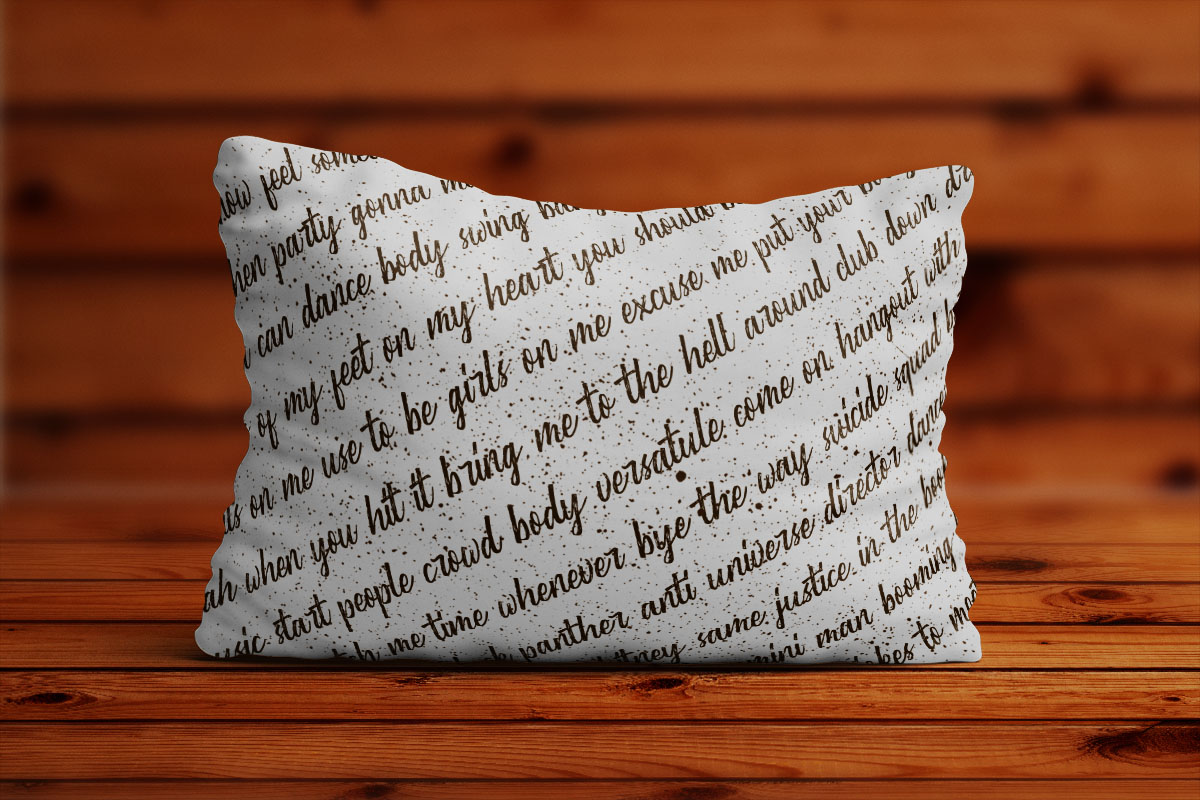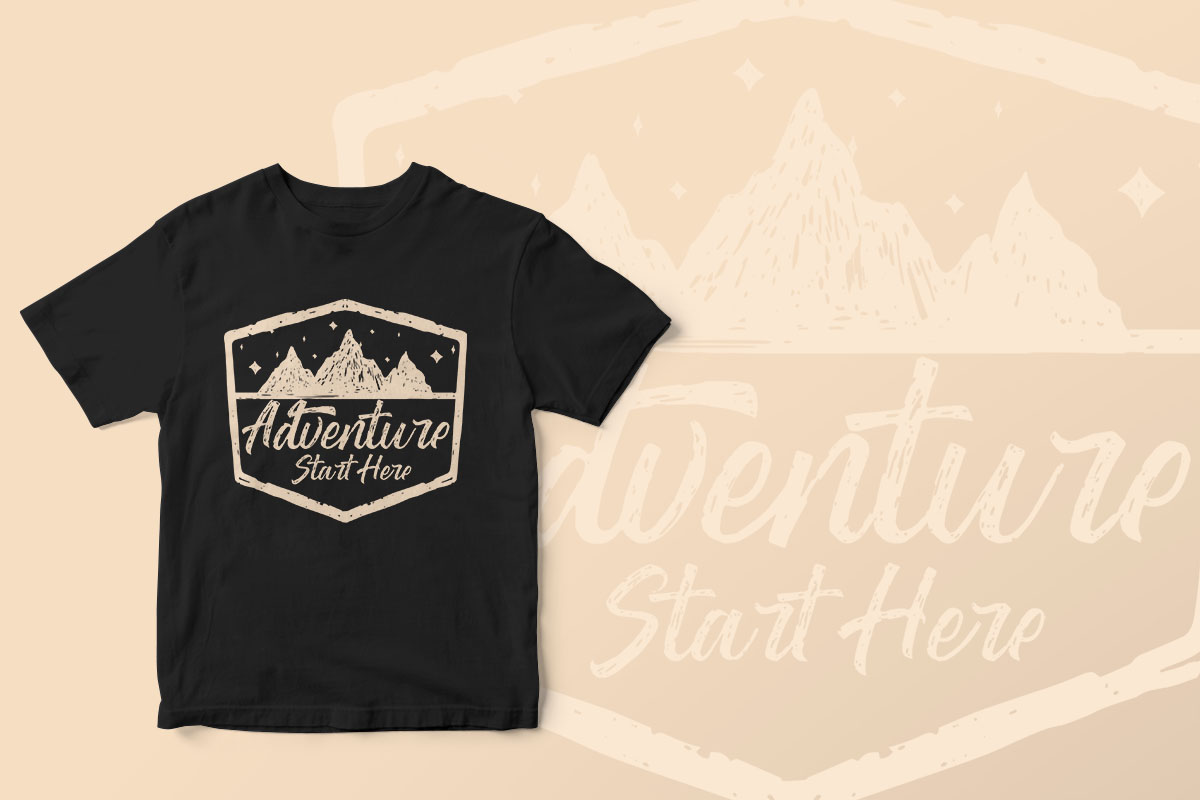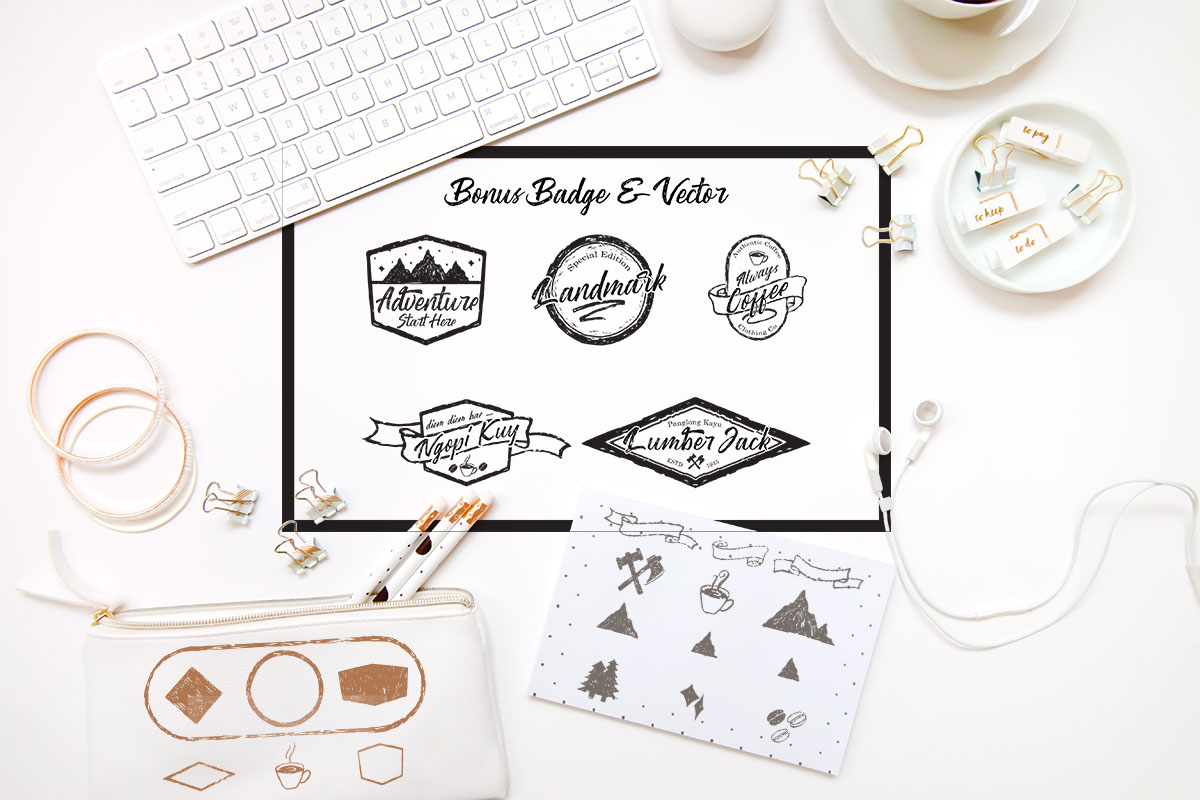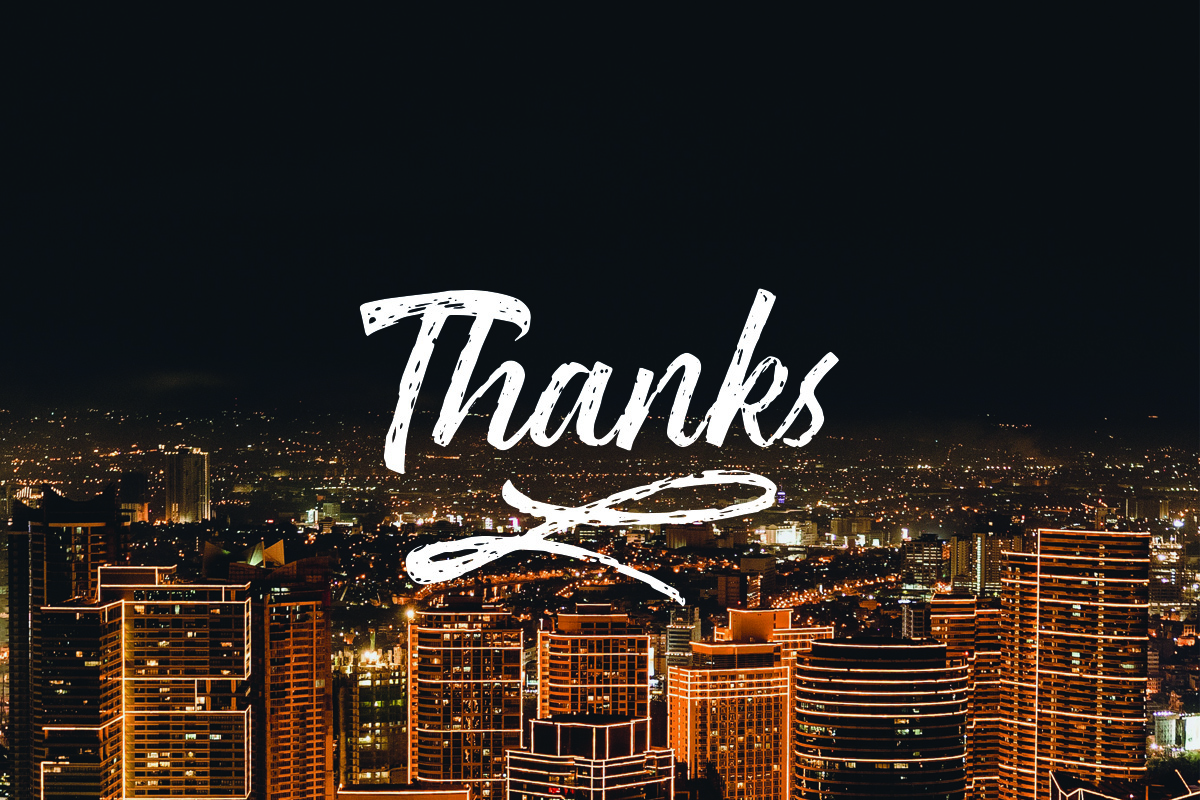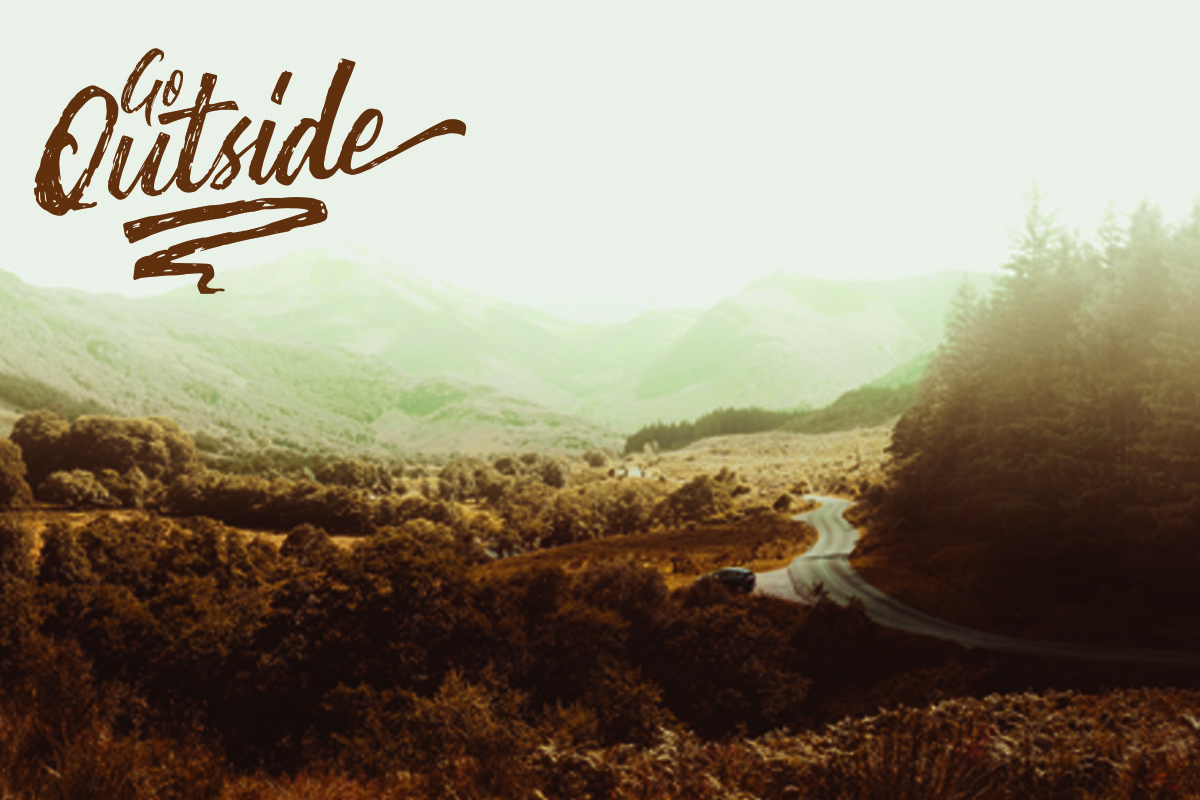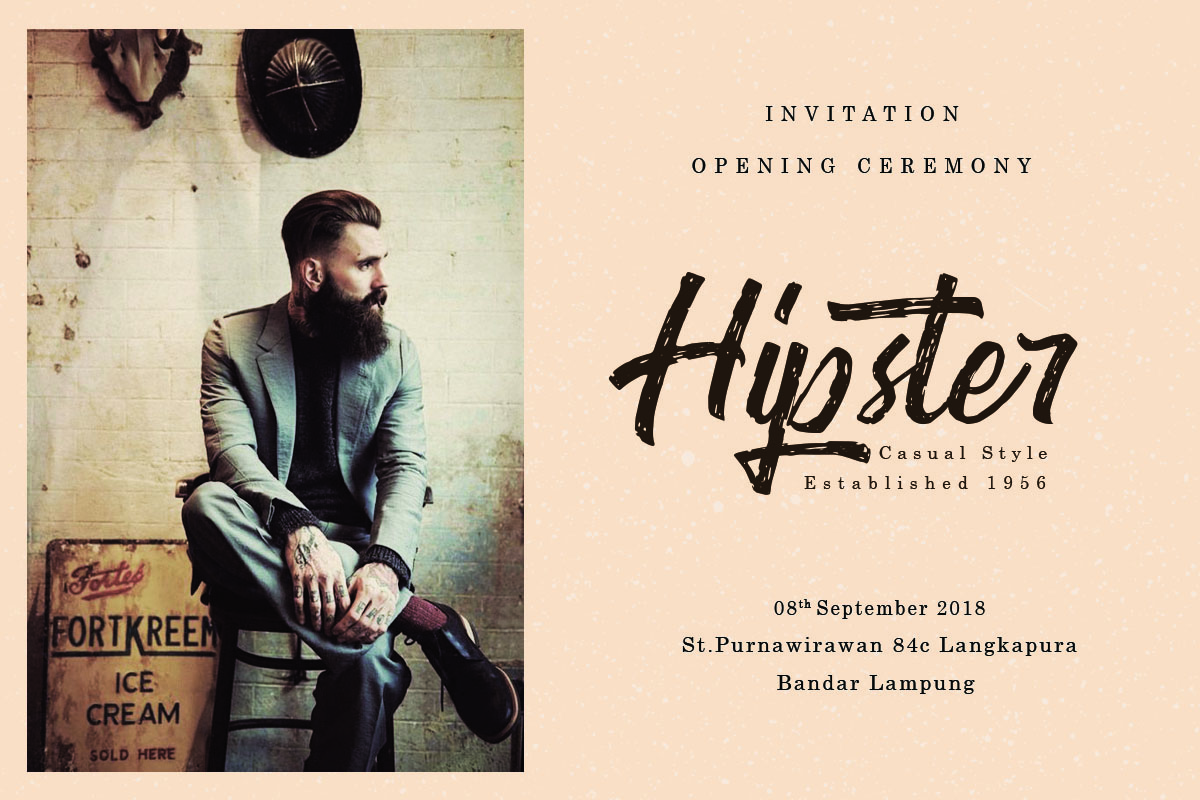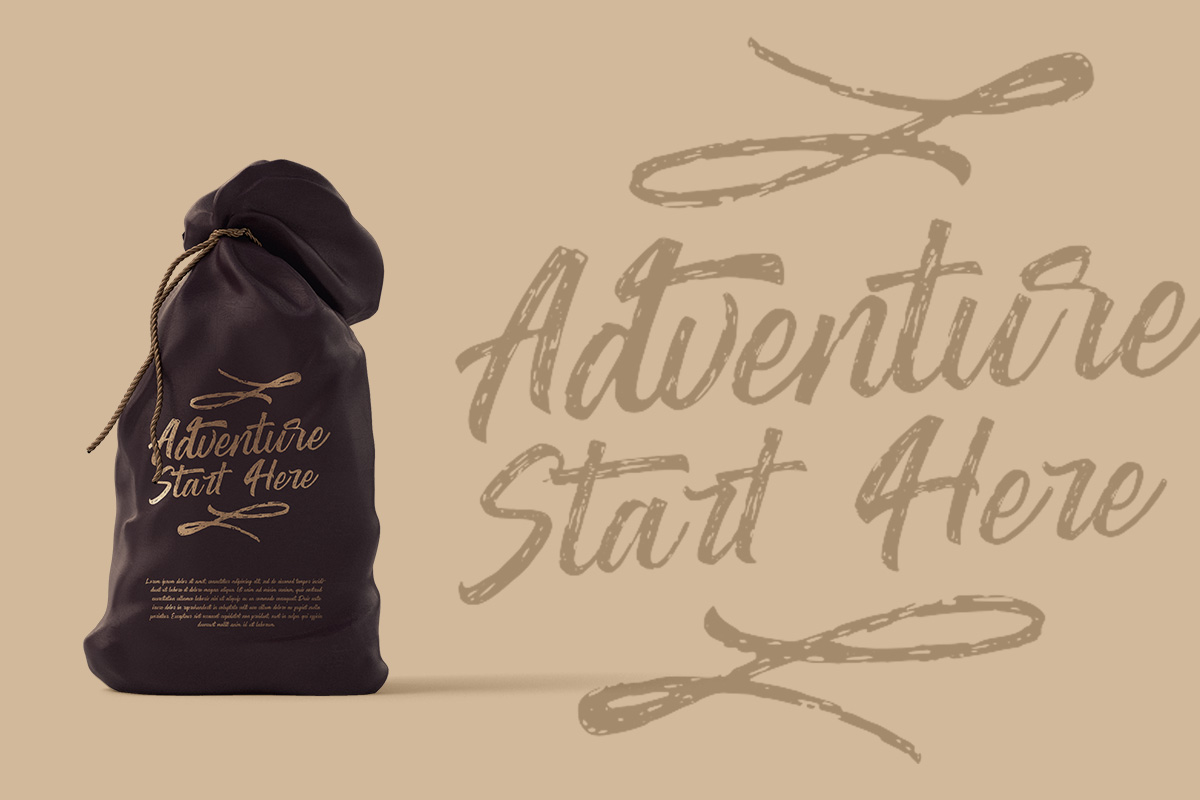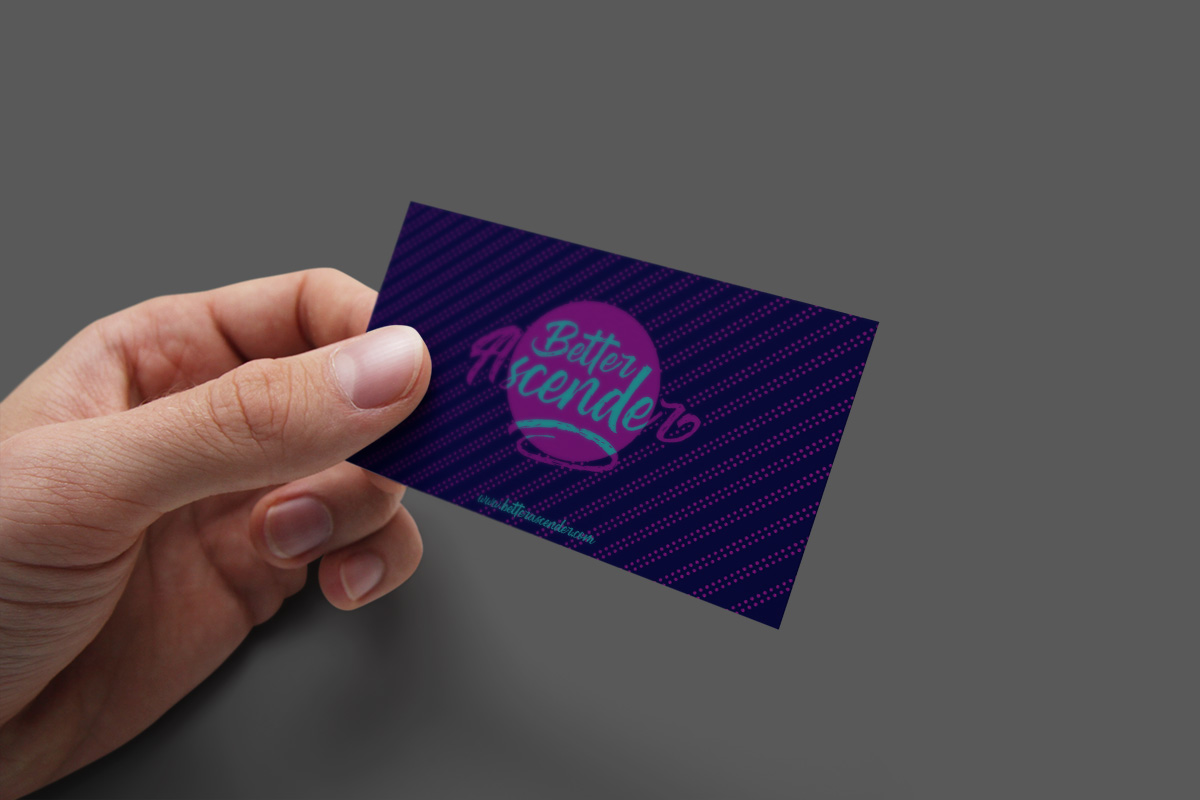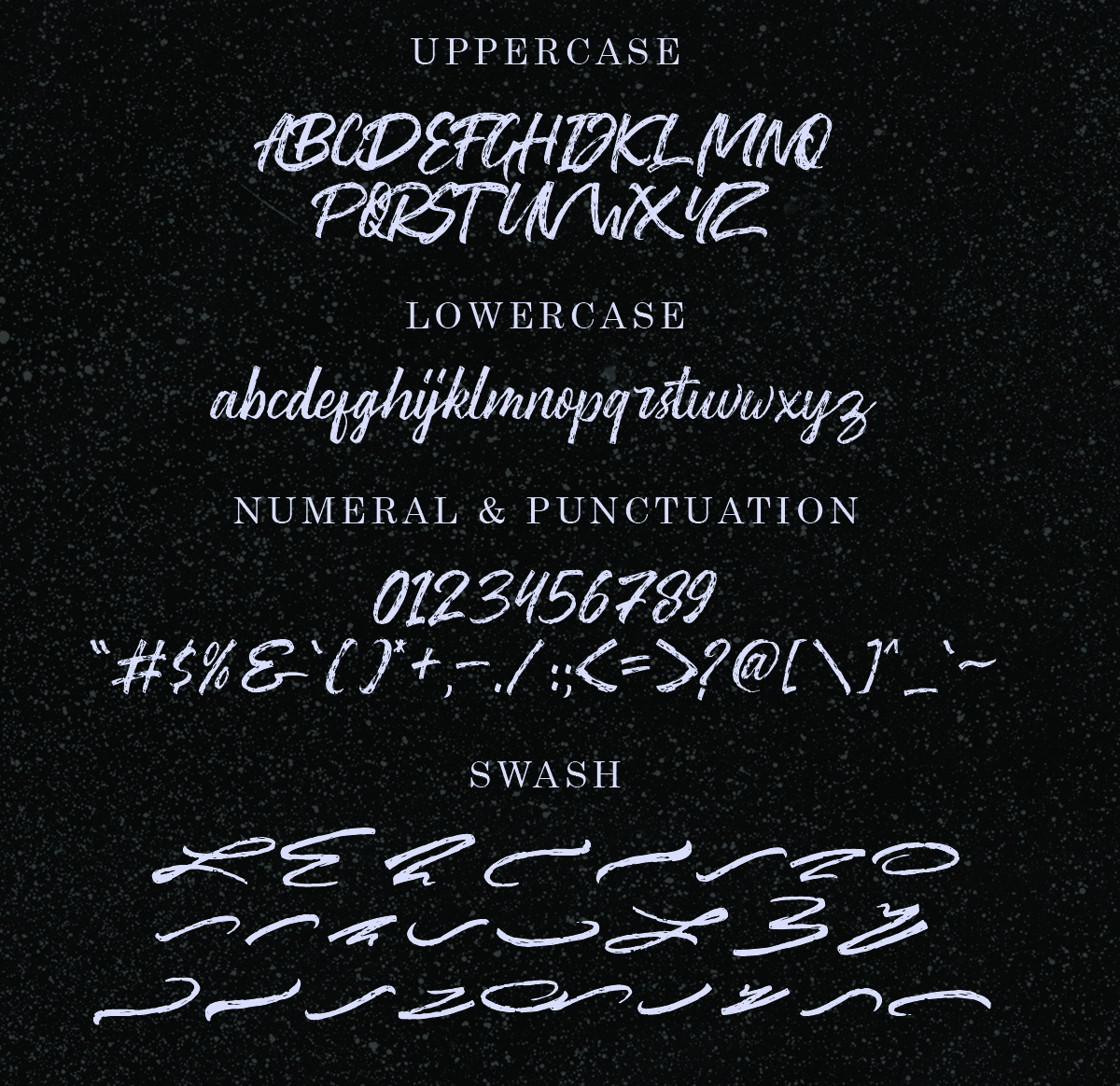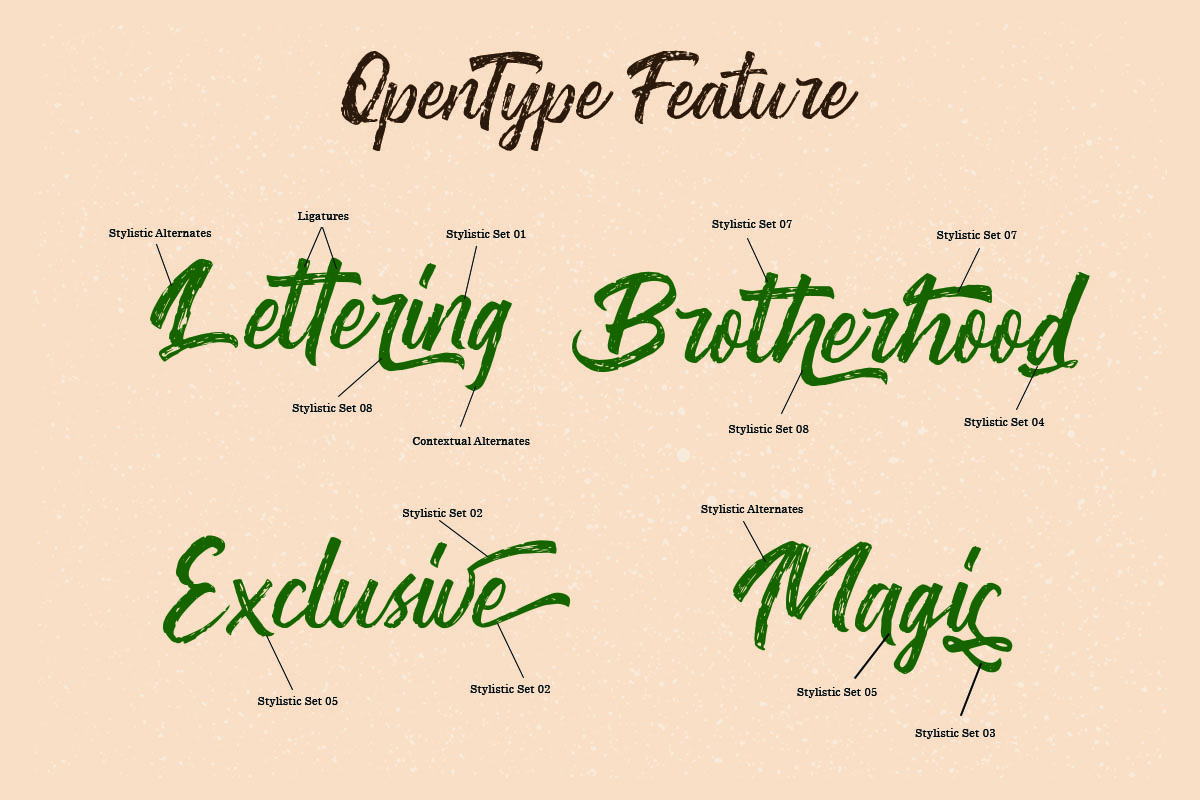
Washington Font
About Washington Font
Washington is a gorgeous vintage style rough script typeface. This typeface is a handmade set, and its texture and vintage appeal gives such an authentic feel to a wide range of high style projects.